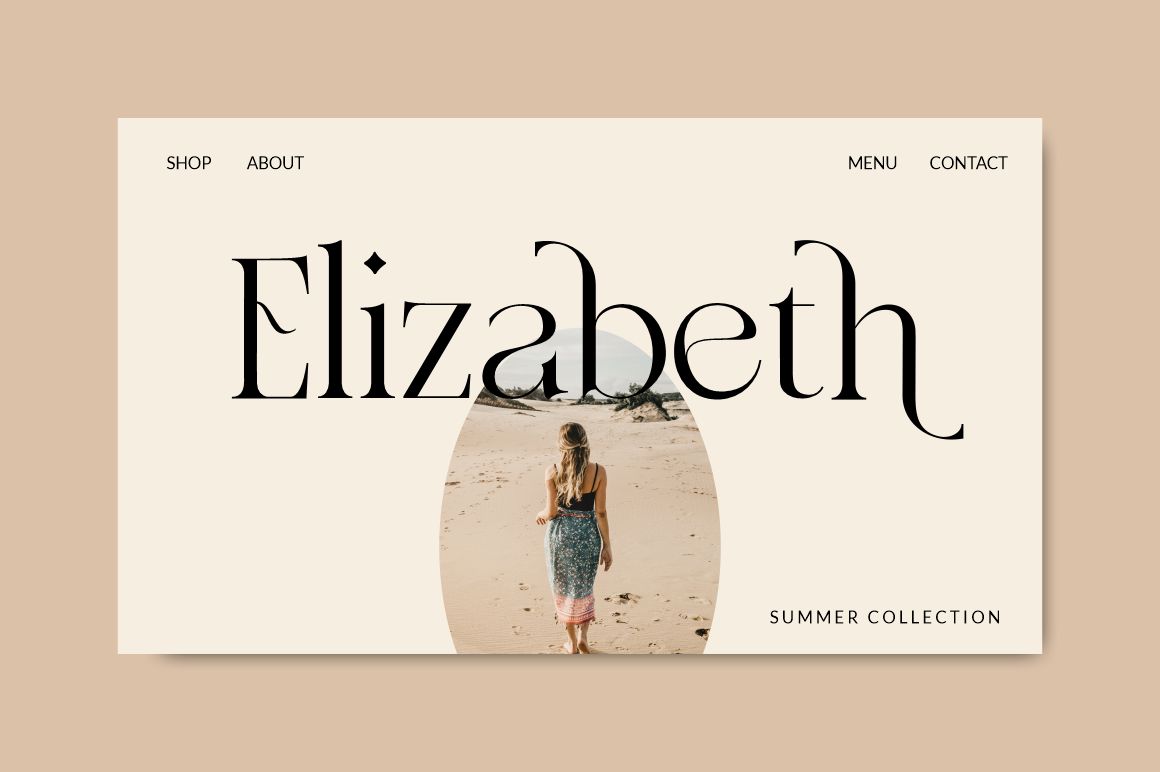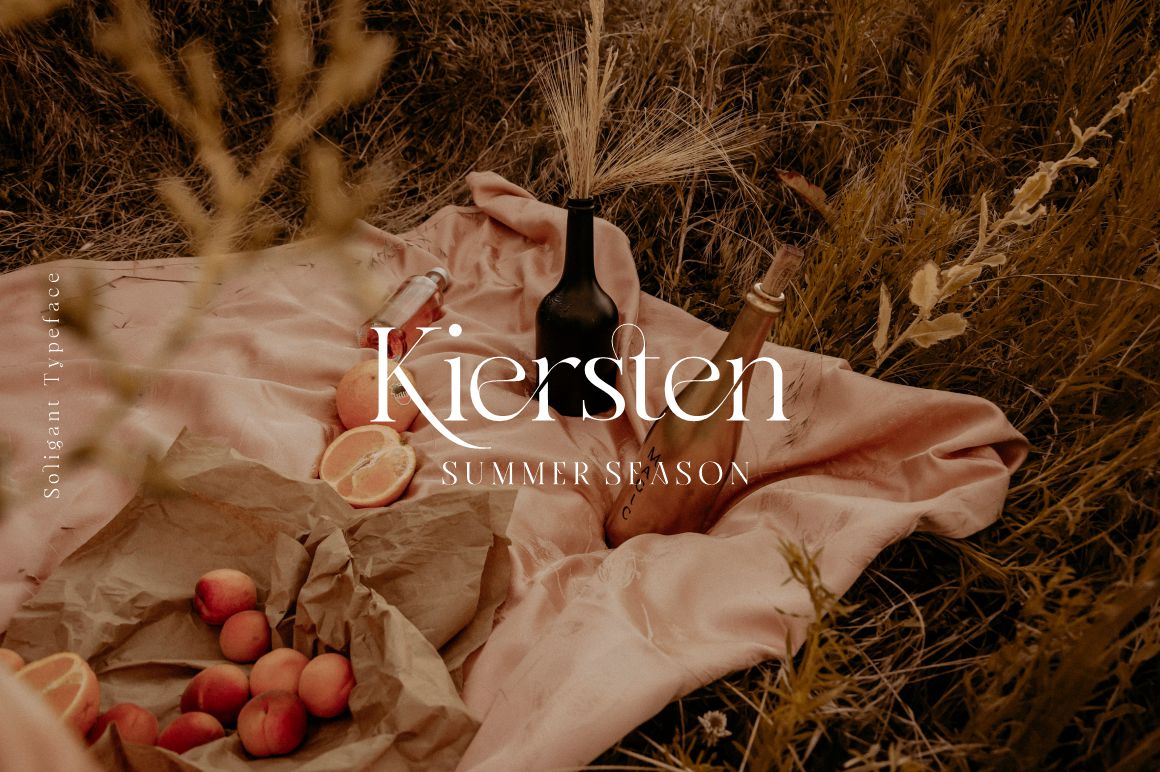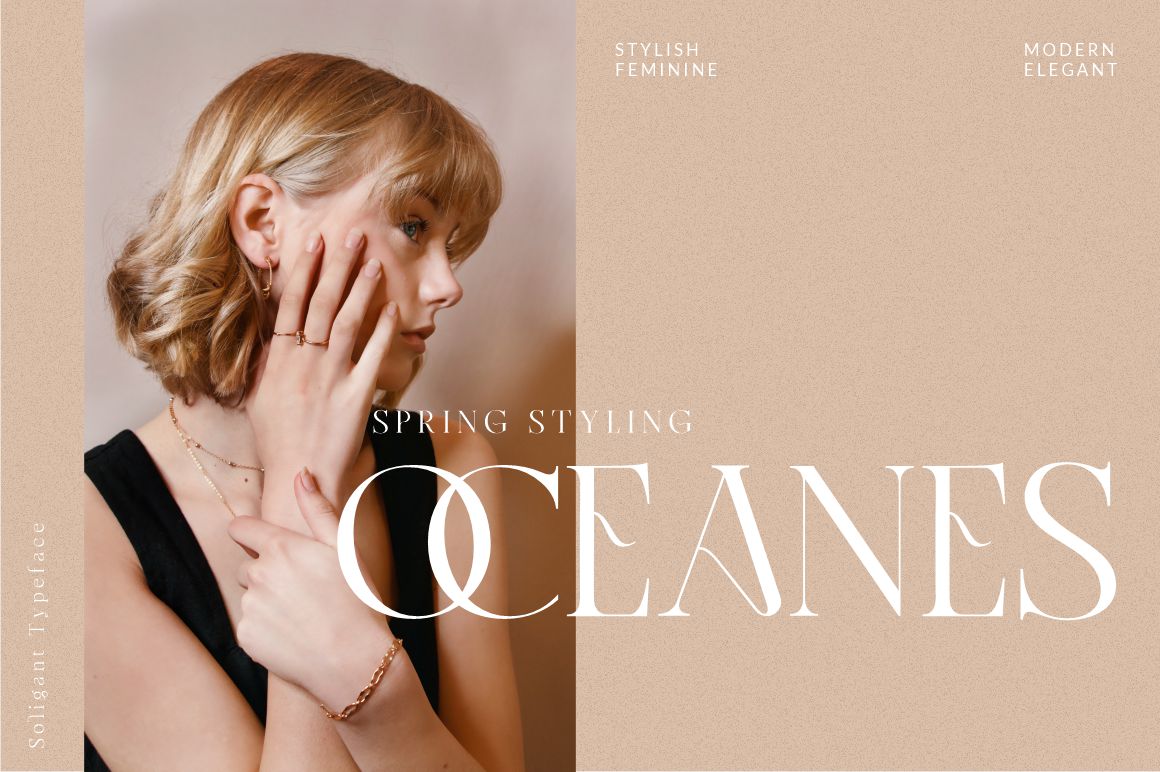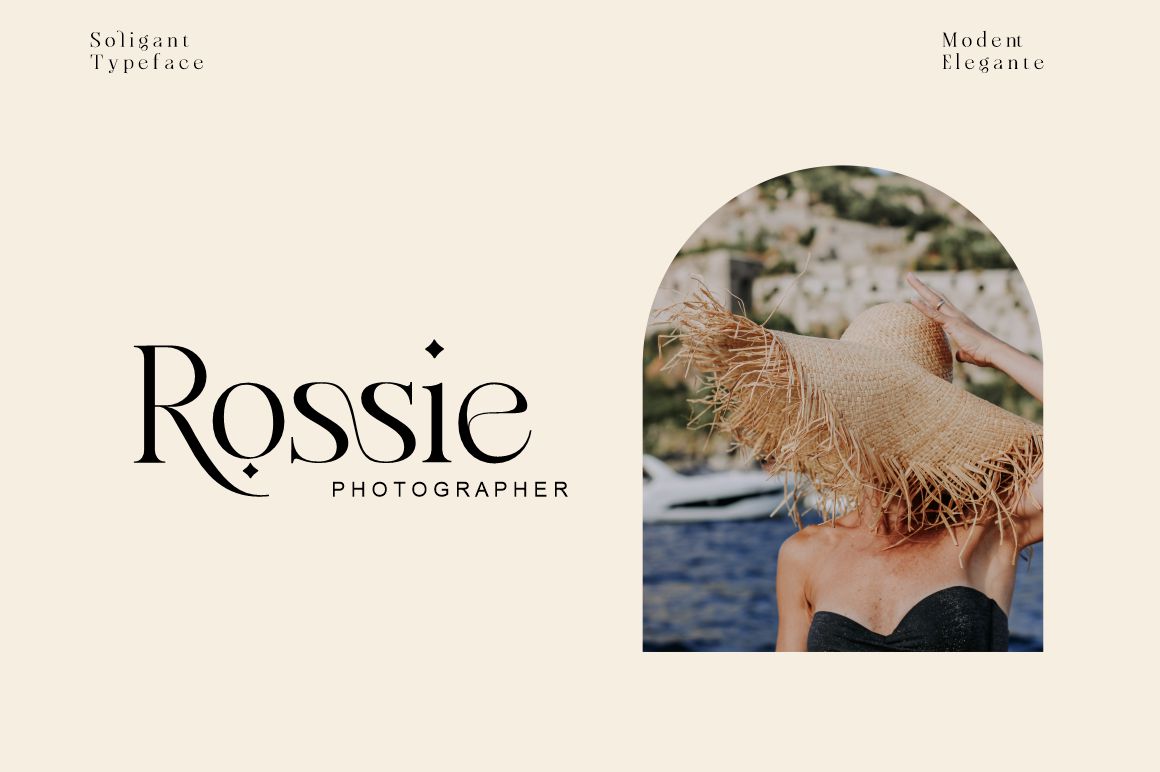
Soligant Font
Soligant Serif Font
It’s an unique, elegant and classic serif font with a vintage chic look.
Soligant is perfect for your up coming projects. Such as luxury logo and branding, classy editorial design, woman magazine, cosmetic brand, fashion promotional, art gallery branding, museum, historical of architectural, boutique branding, stationery design, blog design, modern advertising design, card invitation, art quote, home decor, book/cover title, special events and any more.